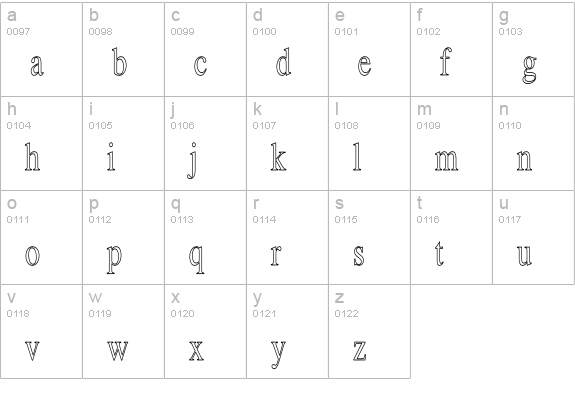
TempusHC Font Details
TempusHC is a stunningly elegant font that combines timeless grace with modern flair. With its perfectly balanced curves and delicate strokes, this font is sure to captivate and inspire. Its sleek and sophisticated design makes it a versatile choice for a wide range of projects, from branding and advertising to editorial design and beyond. But what truly sets TempusHC apart is its accessibility. This exquisite font is not only beautiful, but it is also free. Yes, you read that right. TempusHC is freely available to download at FontsMarket.com, allowing designers and creatives from all walks of life to access and enjoy its refined beauty. Whether you're a seasoned professional or just starting out in the design world, TempusHC is the perfect addition to your font library. Its clean and legible characters make it ideal for both print and digital media, ensuring that your message is always clear and impactful. So why wait? Download TempusHC today and experience the power of this remarkable font. Let its timeless elegance elevate your designs and make a lasting impression. With TempusHC, you have the freedom to create something truly extraordinary. Get your hands on this extraordinary font for free, exclusively at FontsMarket.com.